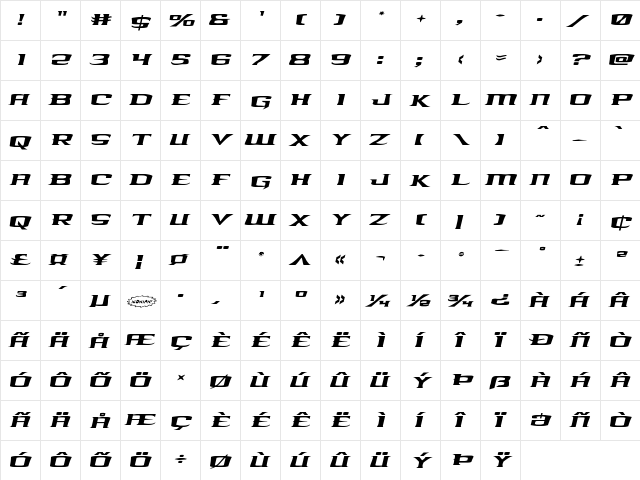
Kreature Kombat Expanded Italic Expanded Italic
Design Context for Kreature Kombat Expanded Italic Typeface
Kreature Kombat Expanded Italic is a composed and adaptable typeface that performs quietly and consistently across a wide range of design contexts. The dynamic lean of this cut emphasises speed and emphasis in any layout.
Pro Tip: Use Kreature Kombat Expanded Italic for emphasis, pull quotes, and subheadings where its slanted energy can add rhythm to the layout.